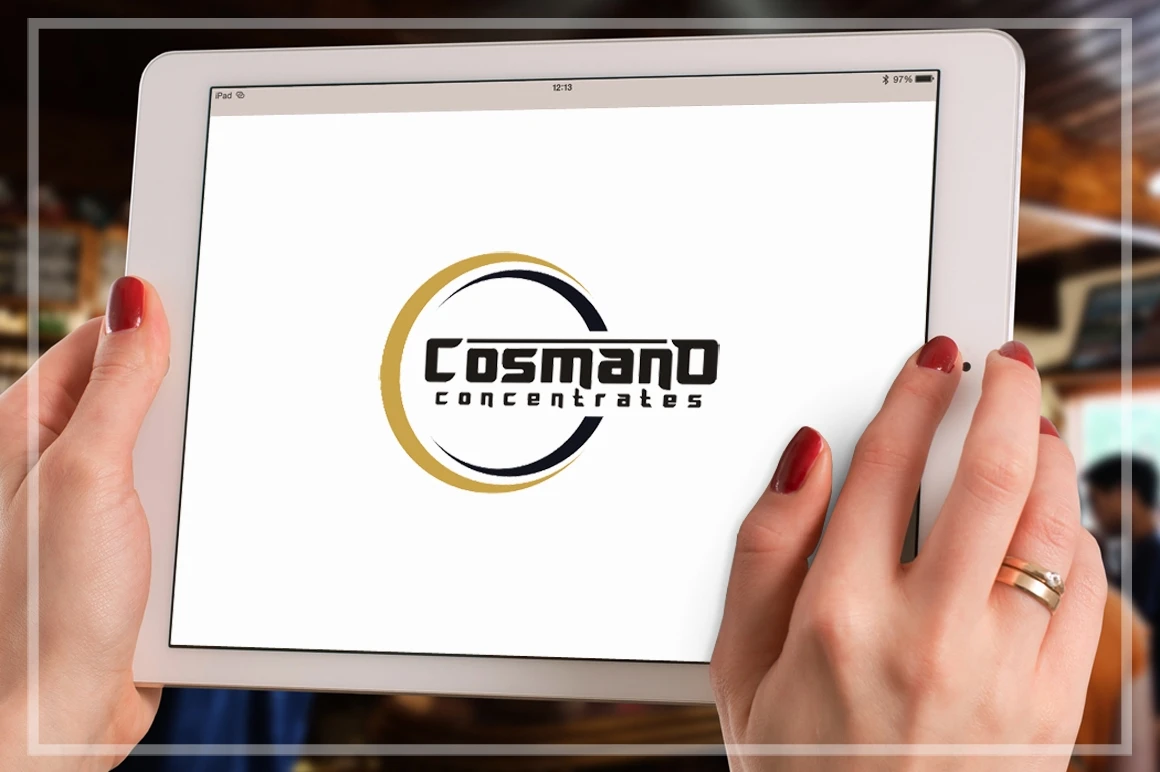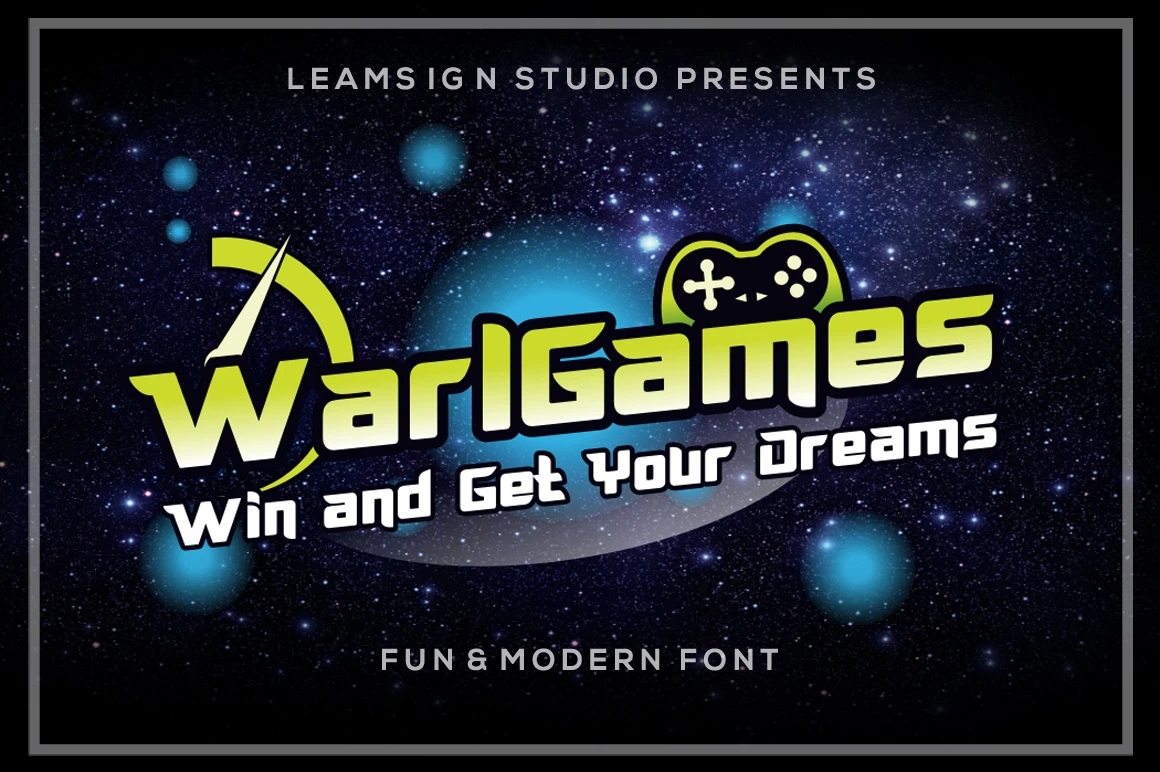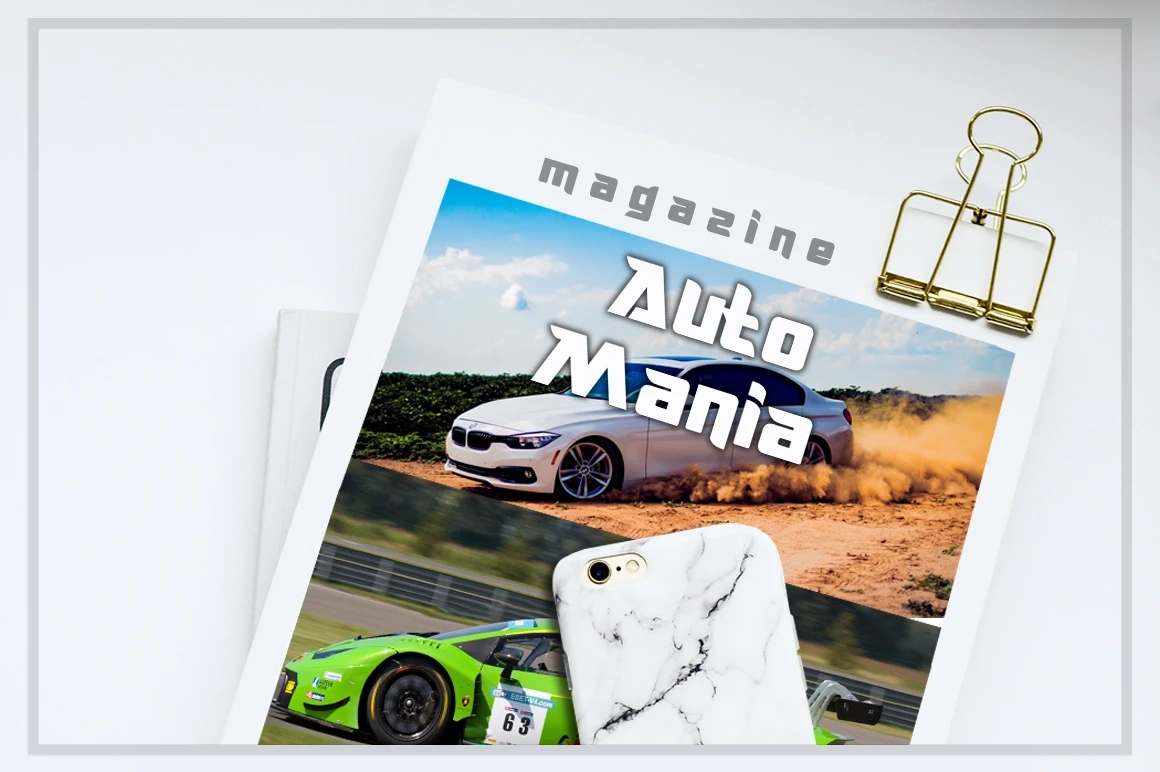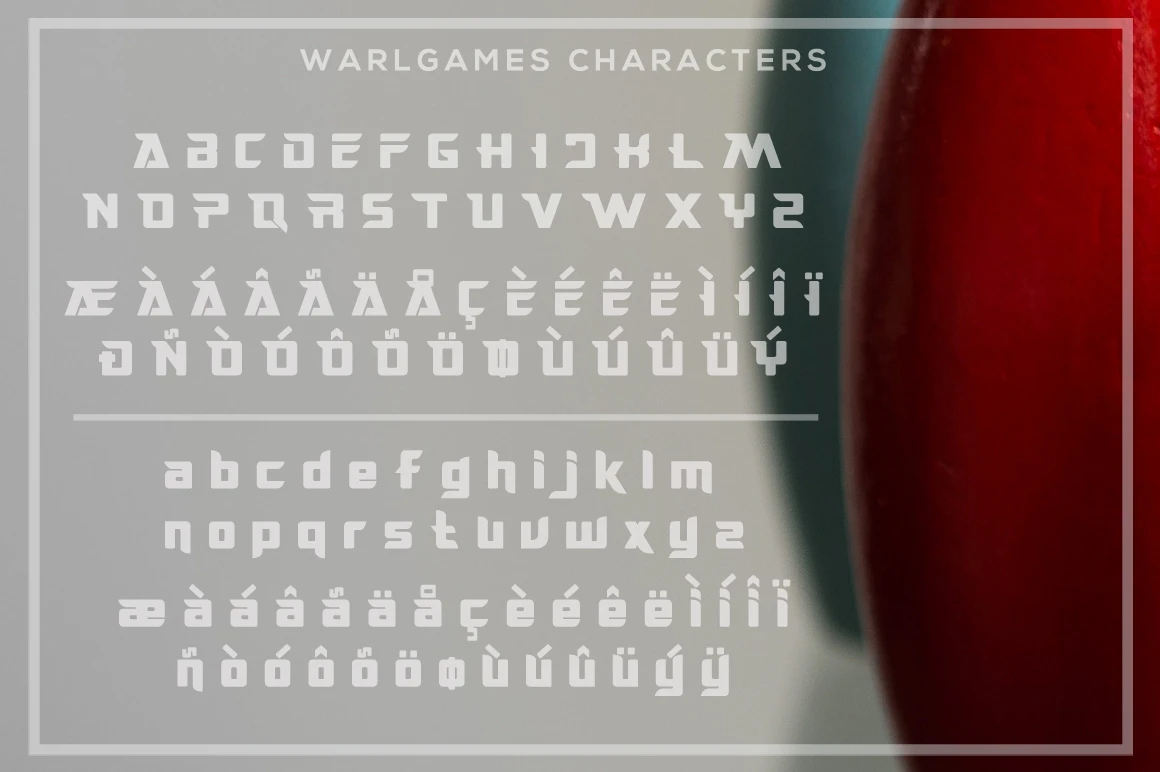
Warlgames is a fun and modern font.
Great for your modern and fun designs, logo, headline, letterheads, etc.
Features :
- Uppercase A-Z
- Lowercase a-z
- Numbers 0-9
- Punctuation
- Multilingual support